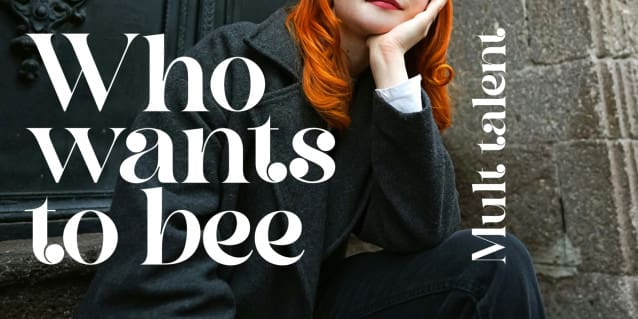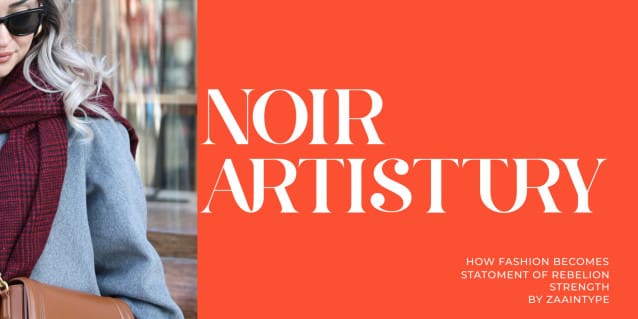
Chan Romance Font
Chan Romance Font is a luxurious high-contrast serif crafted for those who seek sophistication and style. With its graceful curves and bold yet delicate strokes, this font embodies timeless beauty, making it the perfect choice for high-end branding, fashion editorials, wedding invitations, and elegant packaging.
The Regular version offers a poised and refined look, while the Oblique style adds a dynamic, effortless charm